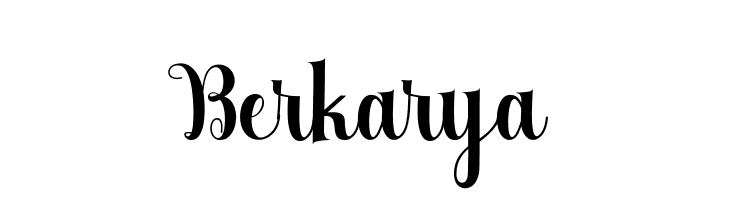
An elegant, decorative script font with intricate swirls and loops.
An elegant, flowing script font with intricate loops and swirls.
An elegant script font with flowing, cursive letters and intricate flourishes.
An elegant, flowing script font with graceful curves and decorative flourishes.
A bold, cursive script font with elegant loops and a handwritten feel.
A dynamic and expressive script font with fluid, cursive letterforms.
A bold, expressive script font with a hand-drawn, artistic style.
A lively, handwritten font with dynamic curves and expressive style.
A dynamic and expressive handwritten script font.
A lively and expressive script font with a playful handwritten feel.